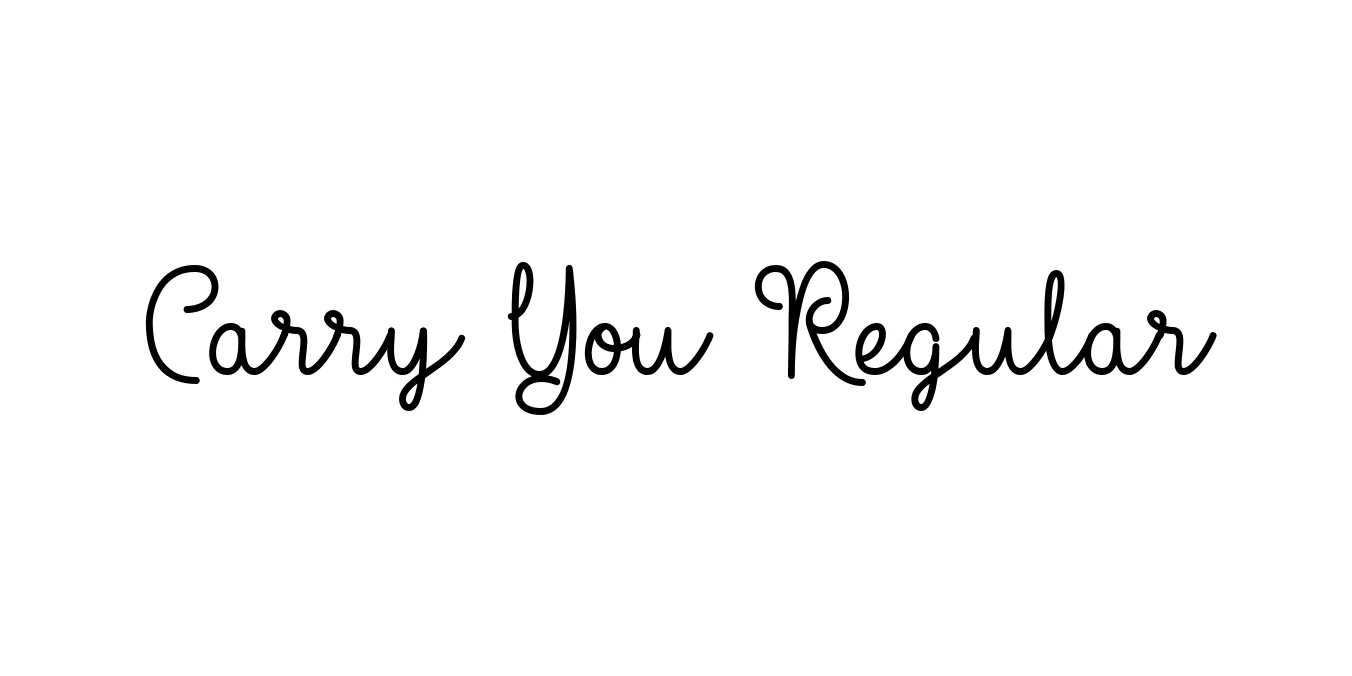
Carry You Regular
| Font Name | Carry You |
Carry You Regular is an exquisite handwritten script font created by the renowned typeface designer Mans Greback. Released to capture the essence of authentic, manual lettering, this font stands out with its fluid connections and organic stroke variations. It embodies a sense of intimacy and personal touch, making it a popular choice for designers looking to add a human element to digital compositions.
The typeface is rich with stylistic alternates and ligatures that enhance its natural flow. Whether used for high-end fashion branding or delicate wedding stationery, Carry You Regular maintains a balance between professional polish and casual elegance. Its versatility extends across various media, from printed invitations to digital social media graphics, ensuring a timeless aesthetic for any creative project.
Carry You Regular Best Uses
Adds a romantic and sophisticated personal touch to wedding stationery.
Excellent for creating signature-style logos and professional brand identities.
Ideal for creating engaging quotes, stories, and lifestyle content.
Perfect for greeting cards, personal notes, and boutique packaging.